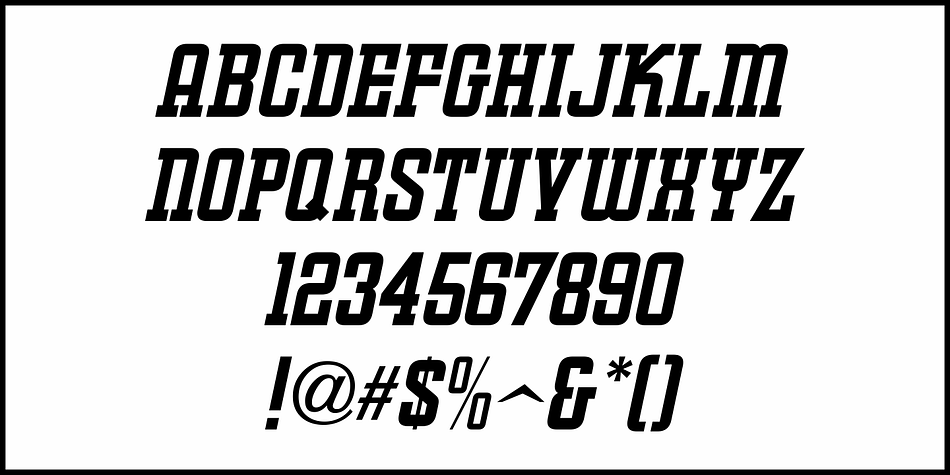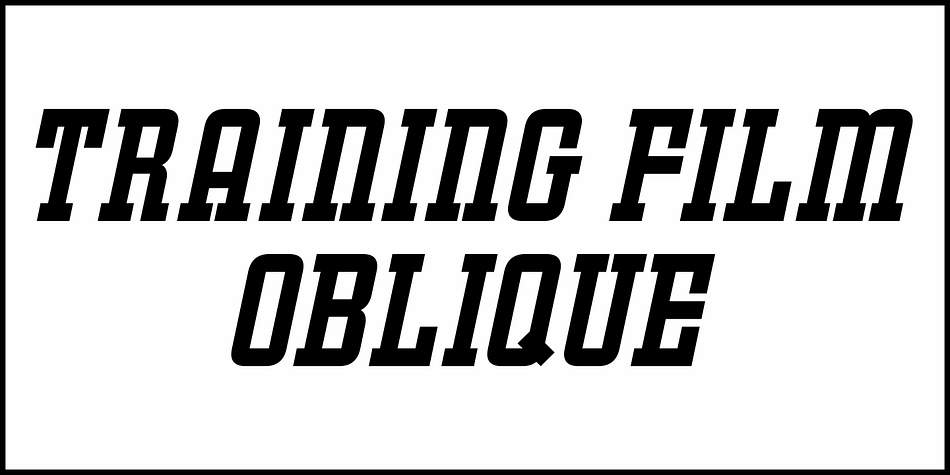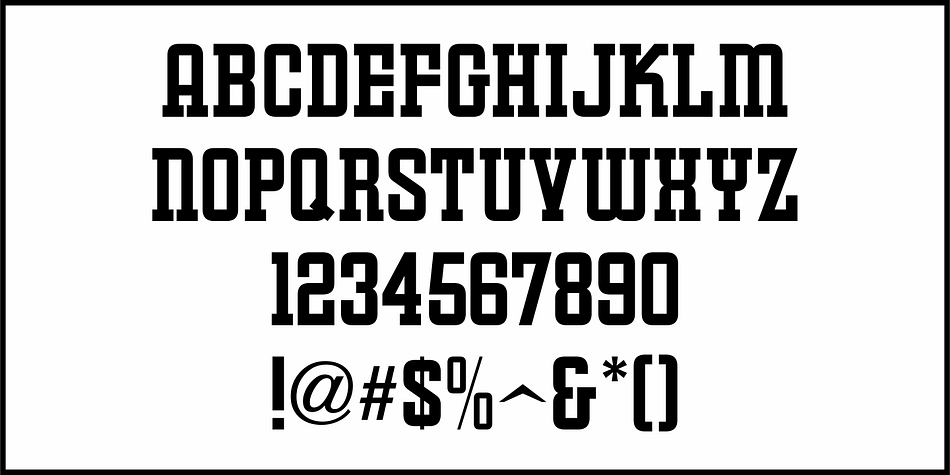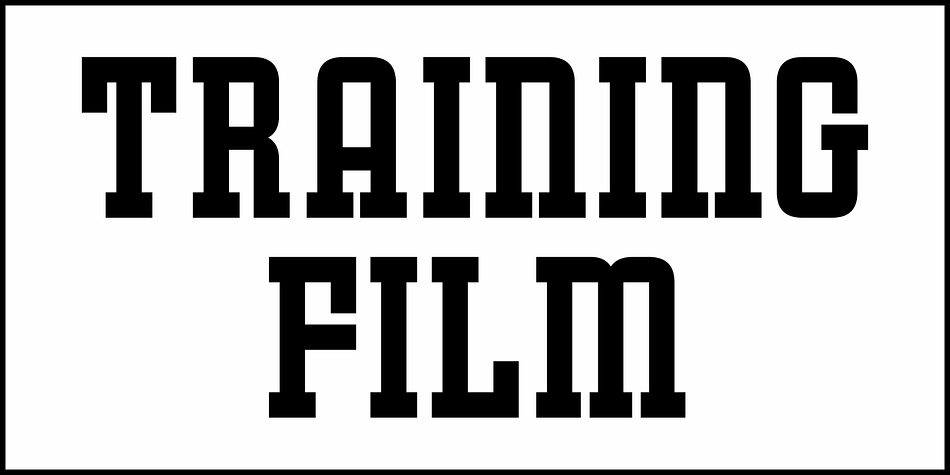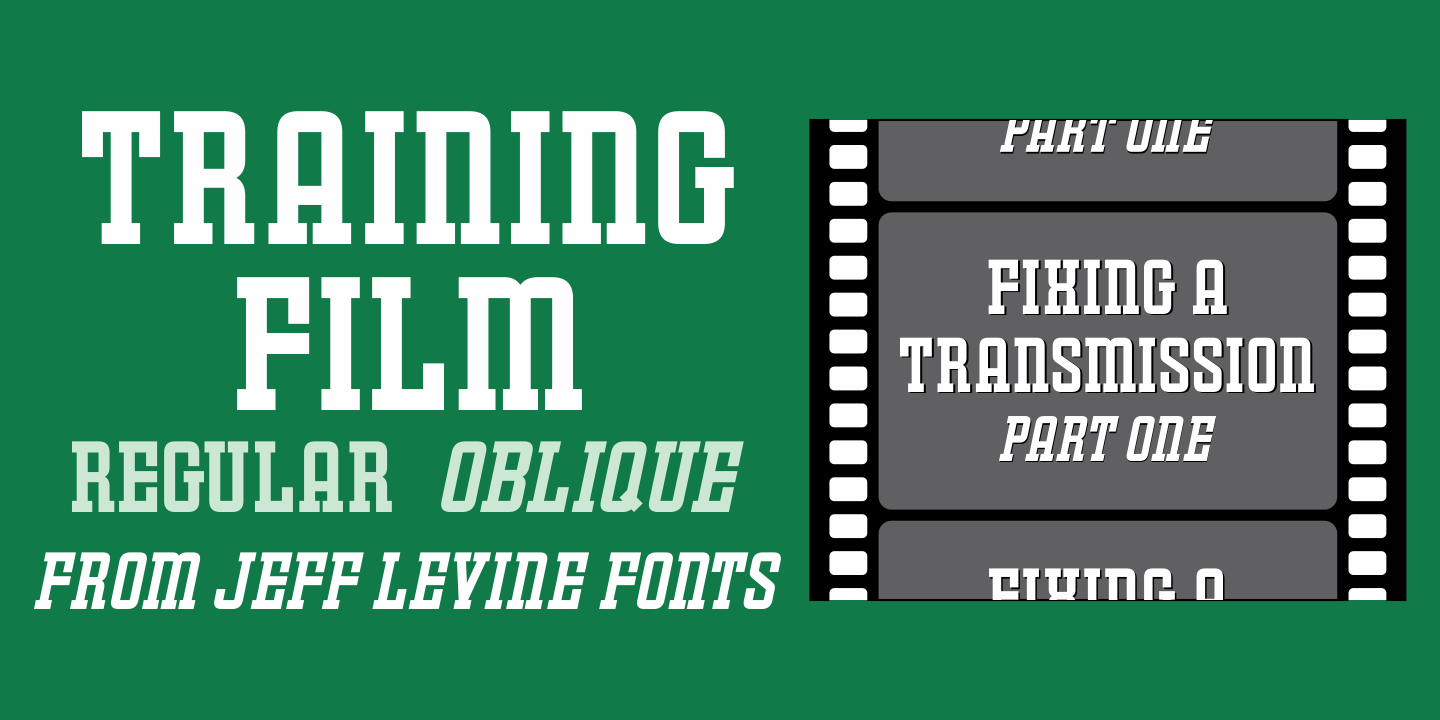
TRAINING FILM JNL
Designed by Jeff Levine, Training Film JNL is an art deco and display slab font family. This typeface has two styles and was published by Jeff Levine Fonts.
The title card “Airplane Hydraulic Brakes” in the beginning of a WWII armed services training film had the words “hydraulic brakes” hand lettered in an Art Deco slab serif style.
This served as the model for Training Film JNL, which is available in both regular and oblique versions.